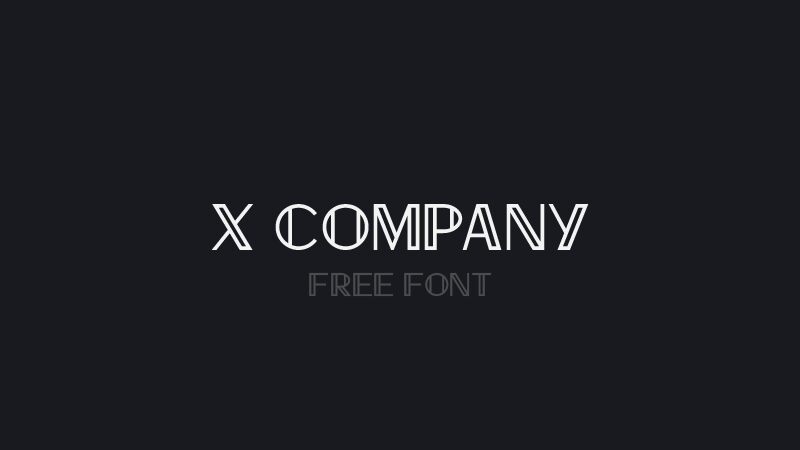
X Company Italic
X Company Italic is a stylish display font designed by GGBotNet. Its retro-inspired style adds a touch of nostalgia to any project, making it perfect for creative endeavors that aim to capture the essence of the past.
With its slanted and elegant letterforms, this font is ideal for vintage posters, magazine covers, or branding materials looking to evoke a sense of classic charm. Whether you're designing an art deco-inspired logo or creating an eye-catching flyer for a 80s-themed event, X Company Italic will transport your audience back in time with its distinctive flair.